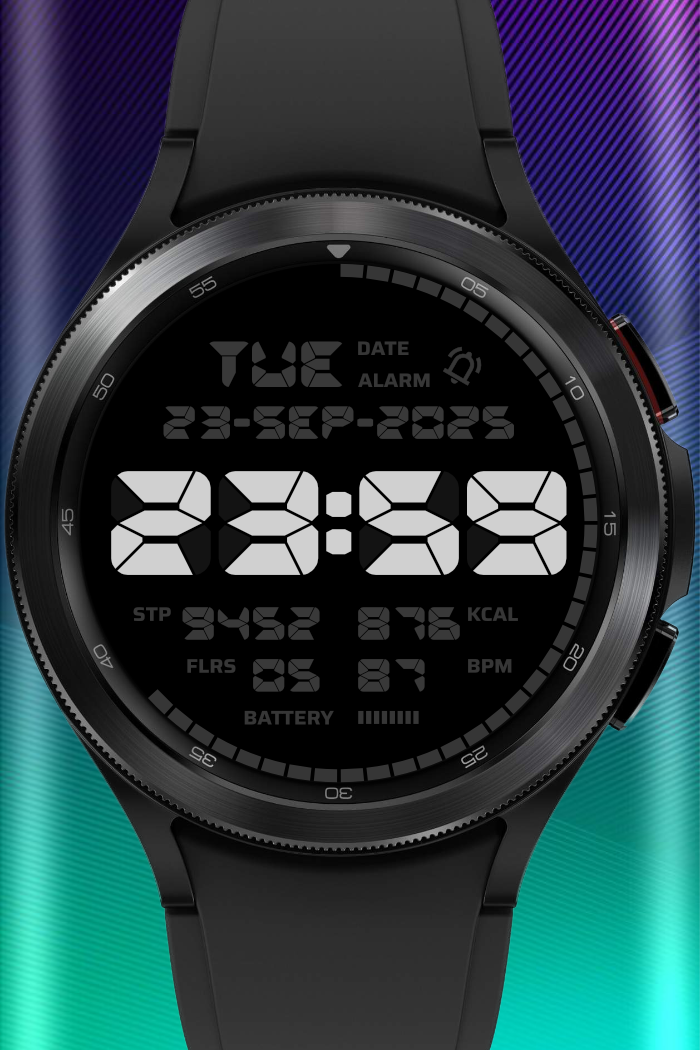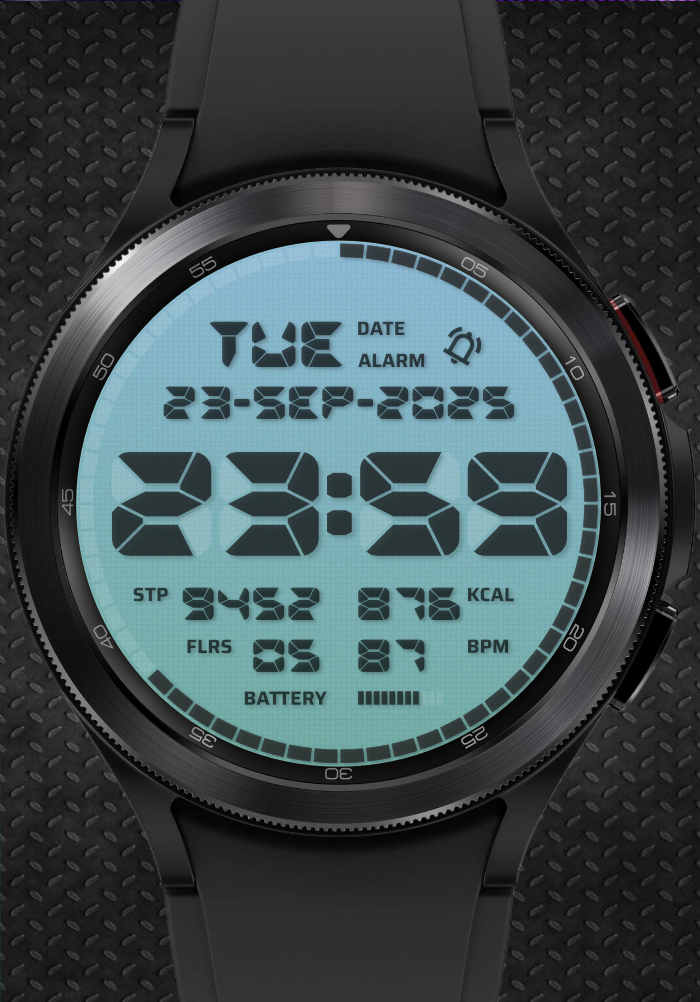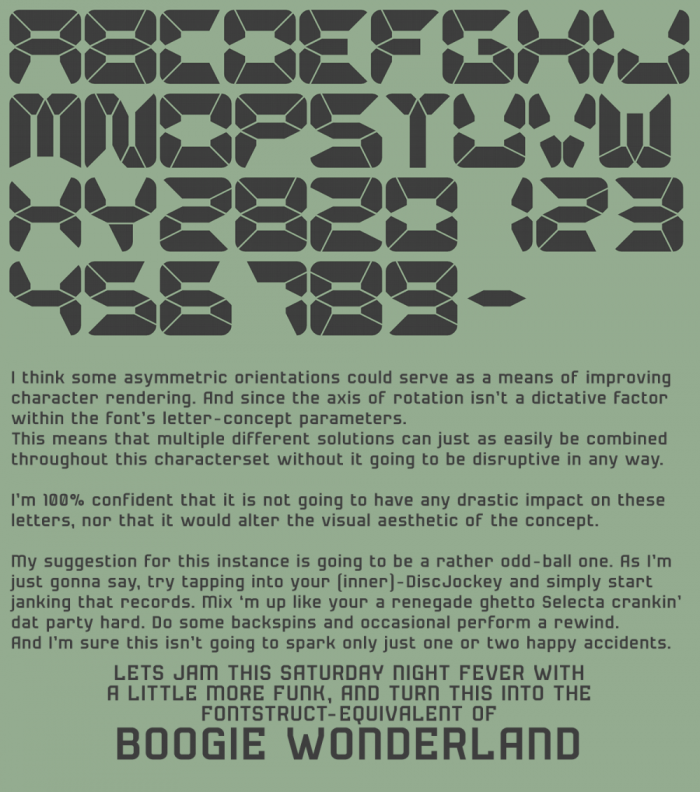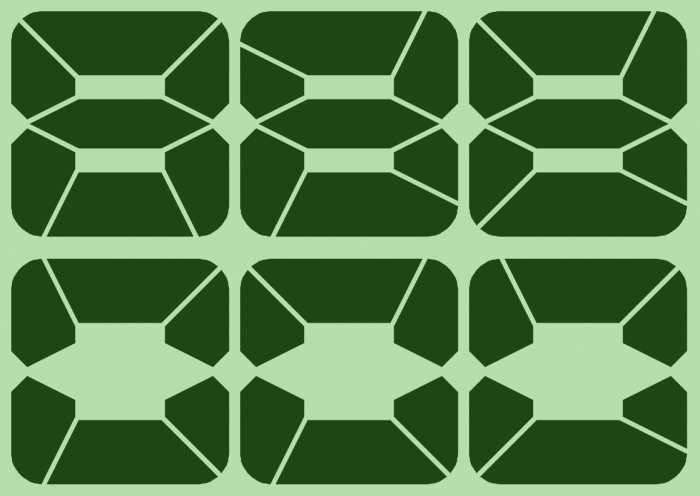
Galaxy Watch Face - Always On Display
This font would definitely work well on a reflective LCD screen…
This is one of the coolest and refreshing segmented LCD designs I've ever stumbled upon!
Did you know one can make LCDs at home as a DIY project? There are video tutorials on YouTube. You can also design your own watch face for Wear OS using Watch Face Studio. I will use this number font to build a digital watch face.
@Sed4tives: Thank you. I've been seeing your designs lately. You created the most beautiful numbers (is it called Balwaum?) before the competition started. Your LCD digits are great, too. I followed in your footsteps and documented my projects in detail.
Really precious fat numbers! I'm agree with @Sed4tives. My only "but" is how dificult is to convert these clock numbers in a usable font...
Now, if this font that you are referring to was published prior of the competition, than this probably would be the Dobini Balwaum family.
I'm very happy with how those two instances turned out. Since the ‘In-lined’ variant was started with a lot of uncertainties initially. Especially since early on, there were some questions on whether it would, or would not be possible to pull-off in "Fontstruct".
Allow me to explain:
The letters have slight unconventional proportions in terms of anatomy. Stems are 37.5% of 1 square grid unit. Which at 2 × brick-size filter, is equal to 6-parts nudging (and 3-parts at 1 × brick-size filter).
So there wasn't this typical luxury of having a bunch of "run-of-the-mill" default stock bricks in ‘project’-compatible size available.
As would've been the case when like for example, working with the ‘Connection’- or ‘1/2-size’ bricks. For which the "Fs"-default stock brick palette provides more than a hand-full of options.
Also this more standardized unity of 0.5 for math-functions such as multiplication and division, isn't necessarily going to 'over’-complicate stuff.
Now, to have a unity of 0.375 as opposed to 0.5 as was described above, immediately becomes this whole other narrative.
No longer facilitating the convenience of that ‘IKEA’-style "pick-n-click" commodities that can be selected from Fontstruct's default brick sets in this particular (0.375) size. So, technically speaking, EVERY brick used in "Dobini Balwaum" is a custom modified composite. Also this unity of 0.375 certainly was going to complicate the font's underlying math. And it was quantifying these ‘raw’ asymmetric multivariate metric ratios and provide them a size-marker. In this case that would've been a fractional division that represents the multilateral sum-average of the font metrics, in an attempt to find an overlapping asymmetric ratio-interval. Henceforth, ratios of such particular structure require further calculus to find the periodic sequence within its fractional amounts of repeating units, which in terms form a pattern. From whom the sum of periodic intervals to complete one full cycle form this cross-compatible rational ratio, that can than seamlessly integrate with all metric aspects of the font.
“Your LCD digits are great, too”
—Rather one that is fairly common though, and has been frequently used. My focal specifically was with implementing those softened and “rounded-off" segments.
“I followed in your footsteps and documented my projects in detail”
—Well, yeah that's something I can appreciate a lot, since “9-out-of-10” Fontstructions do not include “in-depth” accounts that give a greater insight into the creative or technical process that went into it. Probably more often than not, I wonder what it could've been, that inspired something. Also, a brief overview into a font's background would be greatly appreciated (things like: inspiration, research or even a particular piece of specific knowledge).
Although having to admit that perhaps it isn't always as clear and obvious that ensures it will instantly be noticeable, but, I know for a fact, that often much of my additional “font documentation”-related content that revolves around most of my work, besides being there for my personal advertisement purpose means. Often also functions sort-of as these mini-lecture and quick crash-course collection into all things “Typographic”. That is useful for beginners and seasoned creators alike. Countless little “Scraps-'N-Bits” that are scattered, and sometimes hidden within and throughout my entire “Fontstruct”-portfolio. In a way, that is somewhat remotely reminiscent of digital ‘Easter egg’-type of hidden extra's and goodies. Covering a vast spectrum of various different “Typics” and related Subjects. And when was ever to be compiled together into this single large document, would most likely show closer resemblance to a “Type design Master-class” than it would still do to this primary means, that was to suit my self-promotion.
This all would equally perfect fit within my ‘slight’ utopian imaginarium that is what would be the perfect geo-typographic community
That place where its people still enjoy that bit of dialog back and forth. As it is ultimately, that we all have to become stimulated in one-way-or-another, so that we could than become creative ourselves. And its here where we rely so much on others to be winding us up, put us in a general direction, and just let go!
Now, since we simply flow naturally towards the path of functional evolution, any new concepts aren't likely just randomly come into ‘being’ if ideas remain trapped inside you, me or (who)everybody.
All matter that is without motion, thus is therefor also without mass. Something that is without mass can not have form. To be without form is like being an expression with no meaning, or a concept that lacks a purpose. Working a compound with no particles means we are eternally destined to endlessly feed this SIN-GU-LA-RI-TY, until eventually we all but fail to see, that chemistry becomes displaced increasingly.
great!
Wow! I like @Sed4tives demo with the full alphabet. You've inspired me!
OOPS! Not full alphabet. Dont know what i am saying
(P.S. Change up your Z. Looks too much like the 2.)
this is beautiful